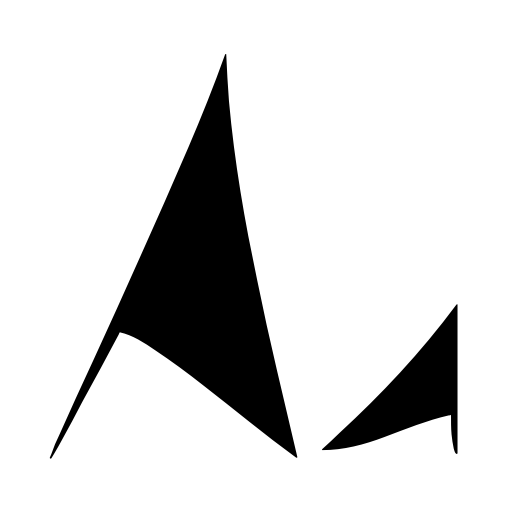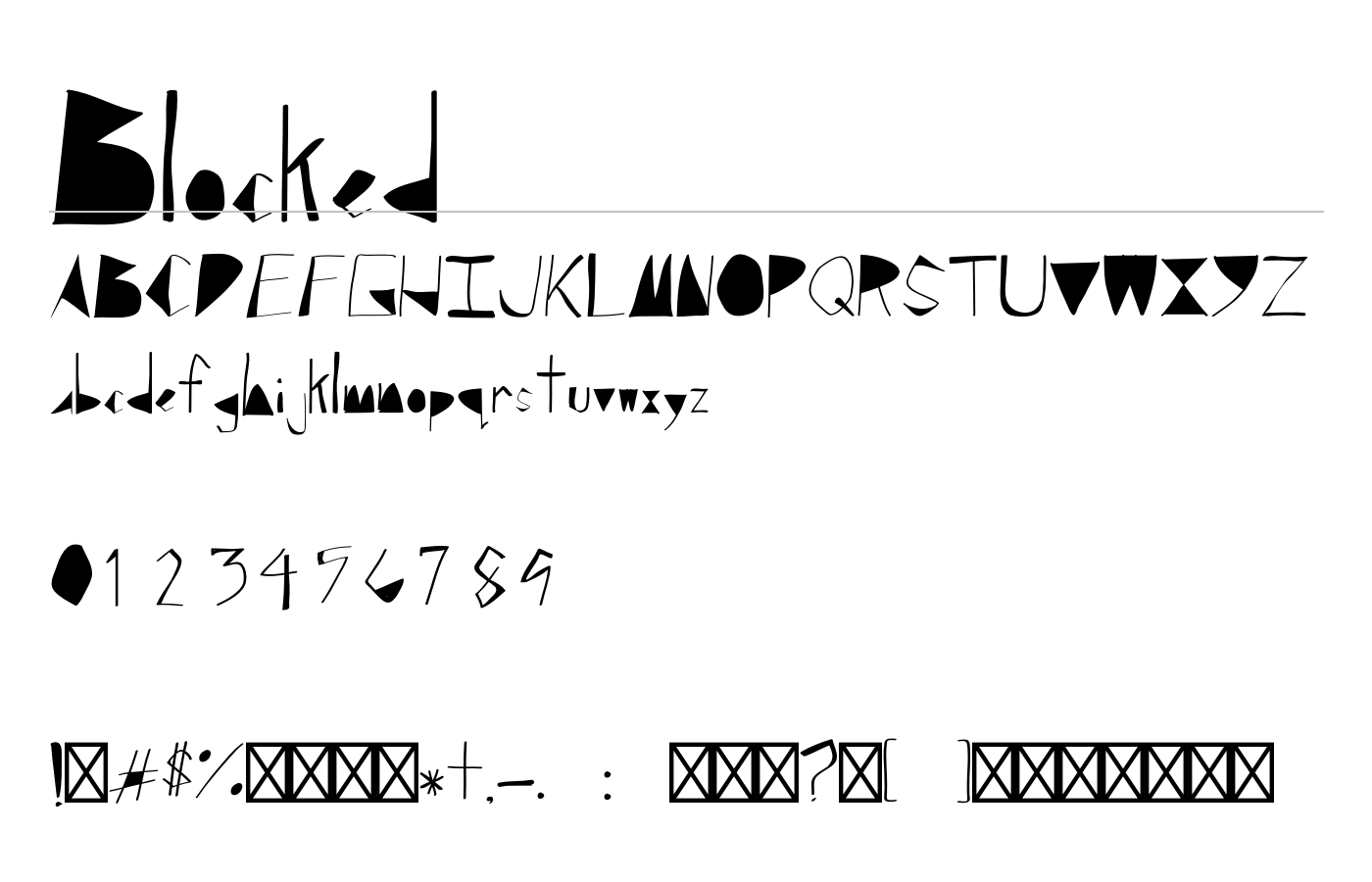
Blocked Font is an artistic, hand-drawn sans serif with highly irregular shapes and dynamic contrasts between thick, solid black forms and thin, delicate strokes. Its quirky, playful style and uneven letterforms give it a creative, expressive personality, making it ideal for avant-garde logos, posters, and unique editorial projects where a bold, unconventional look is desired.
Blocked Font
About Blocked Font
| Font family | Blocked Font |
| Designer | Pamela Batac |